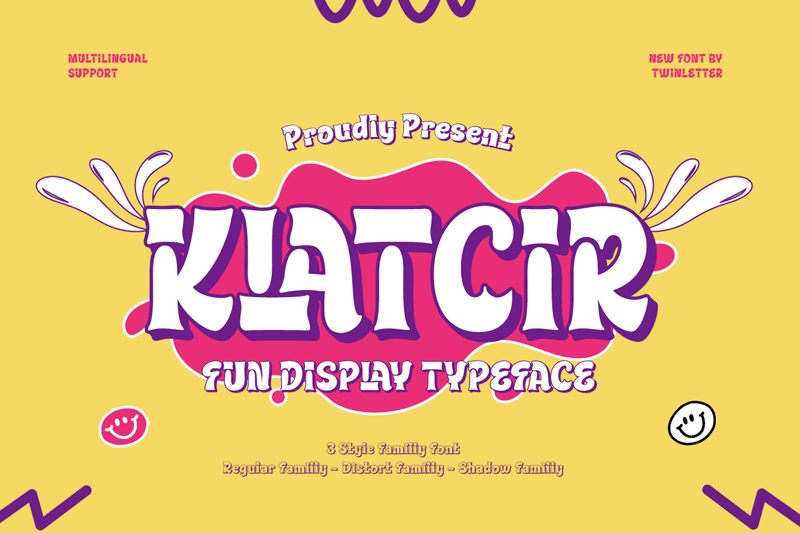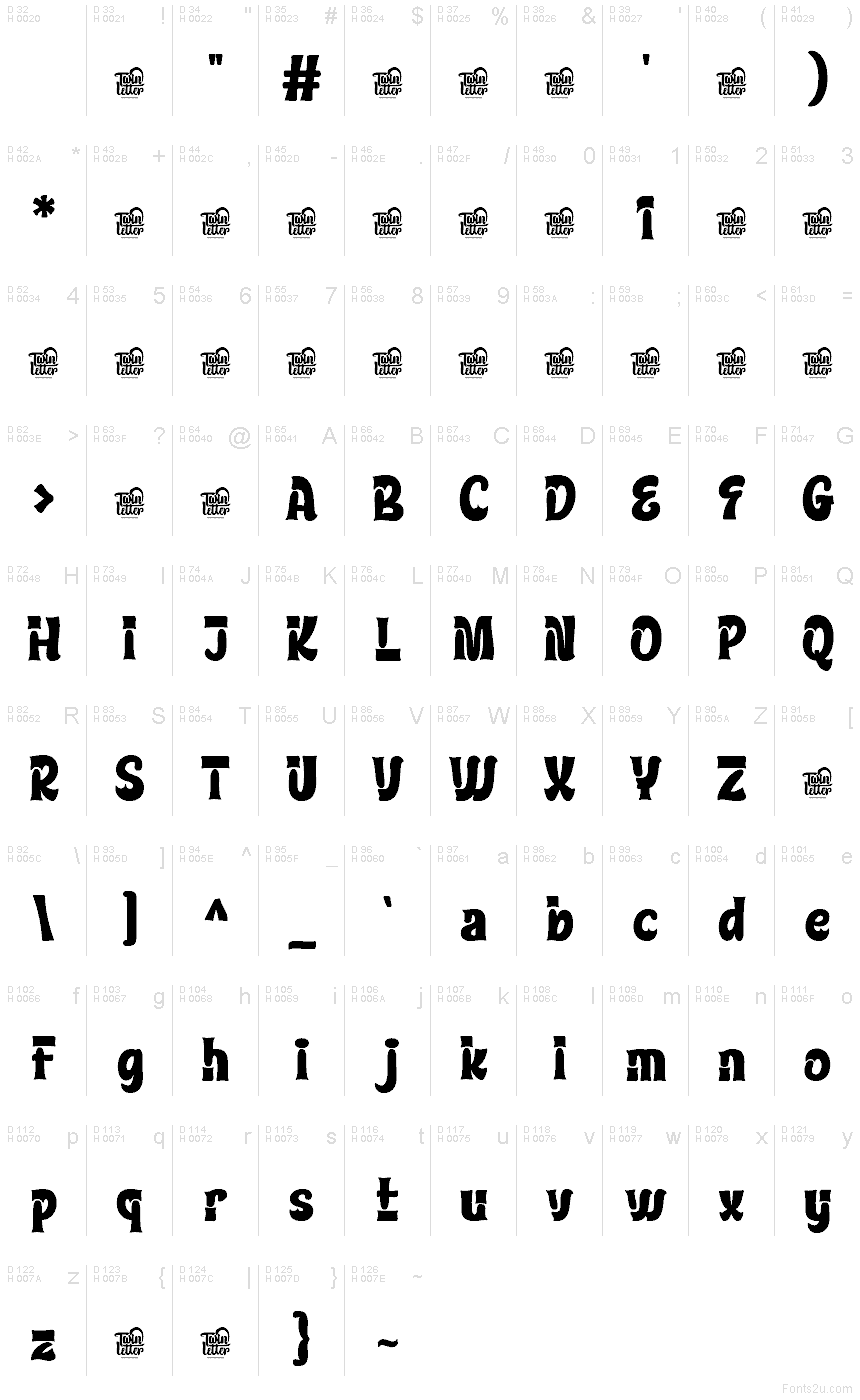
Klatcir font by Twinletter is a free groovy display typeface. Its standout move is the carved, inky rhythm inside each letter-swollen curves pinch into crisp notches, like light cutting through velvet. The chunky silhouettes feel hand-poured yet balanced, giving headlines a rolling, almost percussive beat that’s bold without turning muddy.
Using Klatcir, short words punch hard and stacks of uppercase lock together beautifully, making it shine on posters, festival branding, album covers, retro packaging, coffee labels, social banners, and pop-up signage. This free font loves large sizes; keep copy brief and let the shapes sing. Pair its loud titles with a neutral grotesk for body text to keep everything readable and sharp.